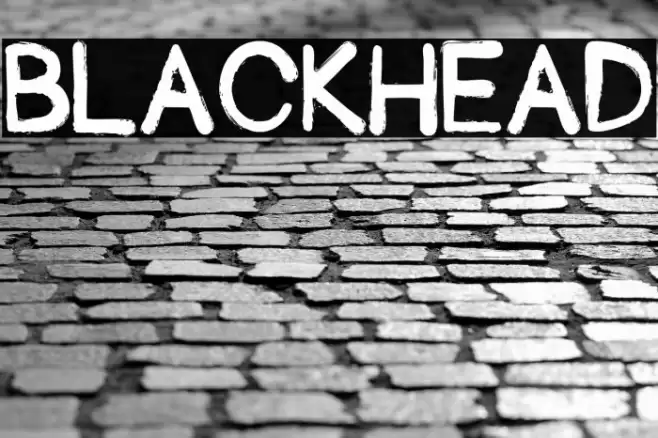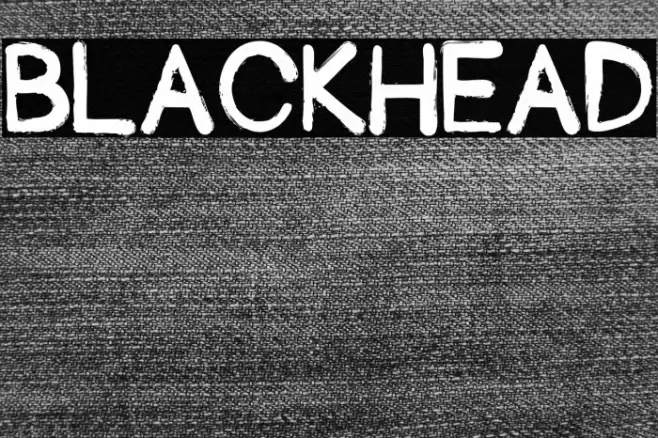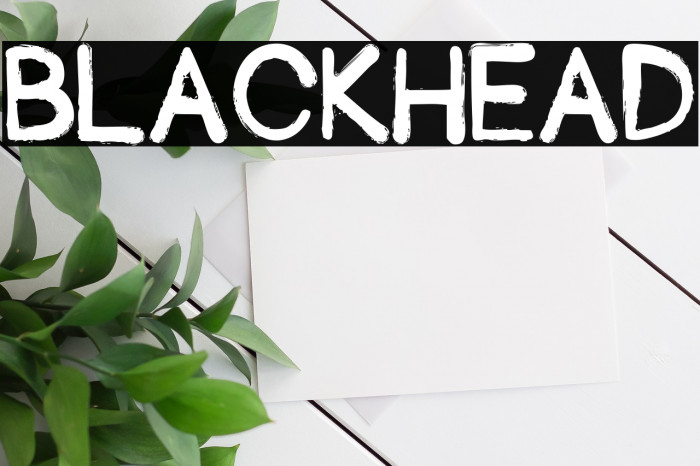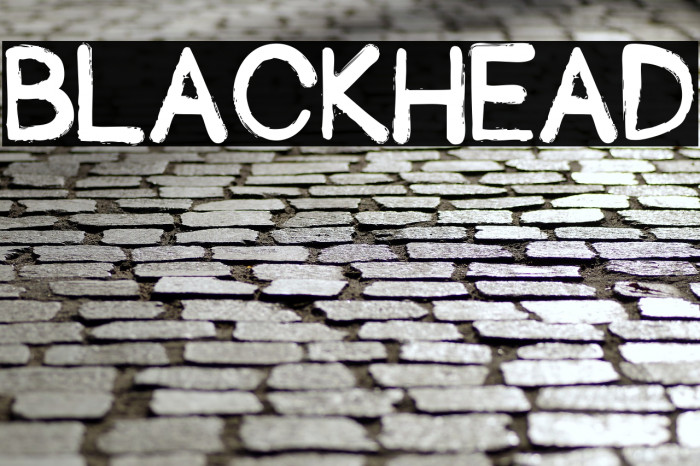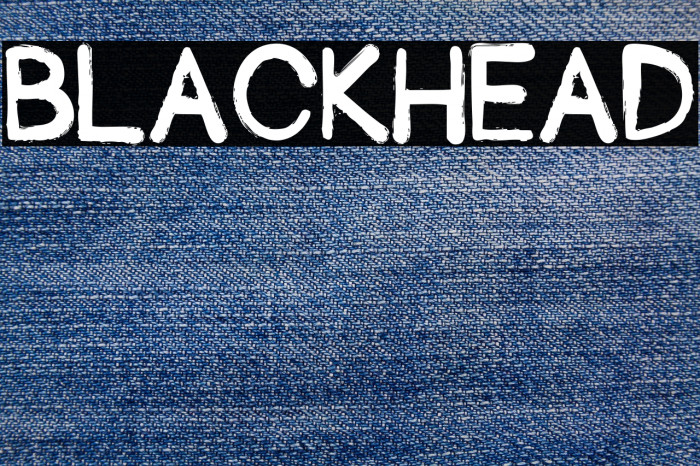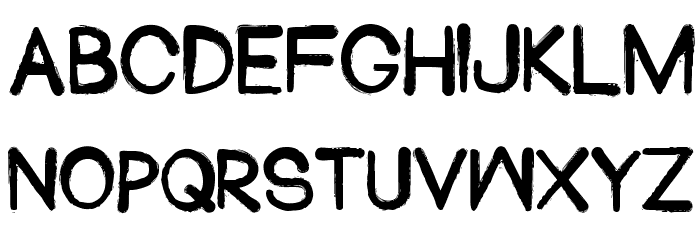
Blackhead Font
Blackhead Description
This font features a bold, hand-drawn style with a rough, textured appearance that gives it a unique and artistic look. The characters are uppercase with a consistent height and width, creating a uniform appearance. The strokes are thick and uneven, adding to the hand-crafted feel. The font has a playful and informal vibe, making it suitable for creative and casual projects. The texture within each letter adds depth and character, making it stand out in headlines or titles. It lacks lowercase letters, focusing solely on uppercase, which enhances its bold and impactful presence.
A bold, textured, hand-drawn uppercase font with a playful and artistic style from Uncategorized fonts.
- Proposed Projects: Ideal for posters, artistic designs, branding, and any project requiring a bold, creative touch.
- Overall Style: Artistic, Playful